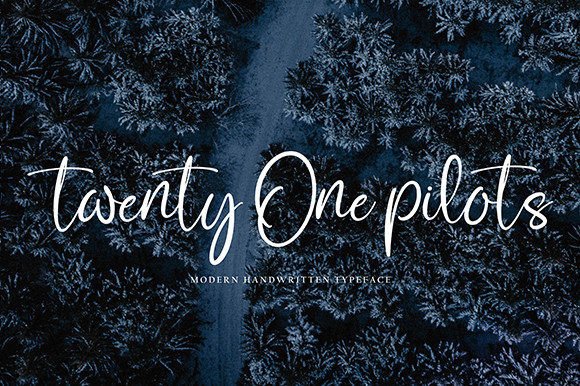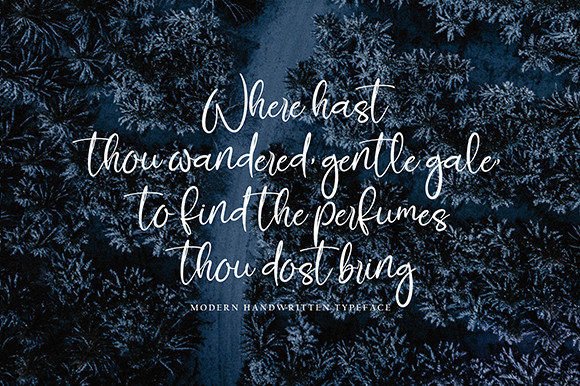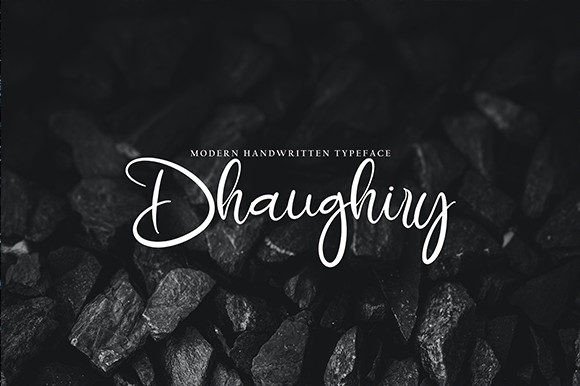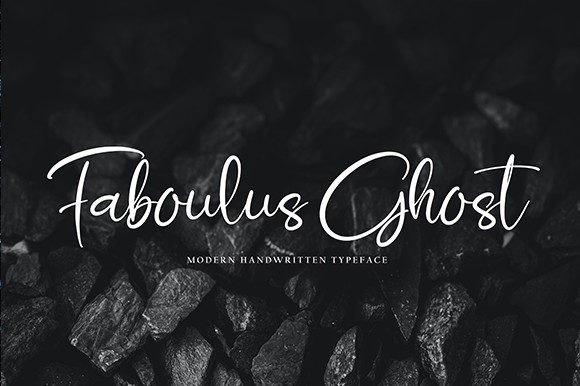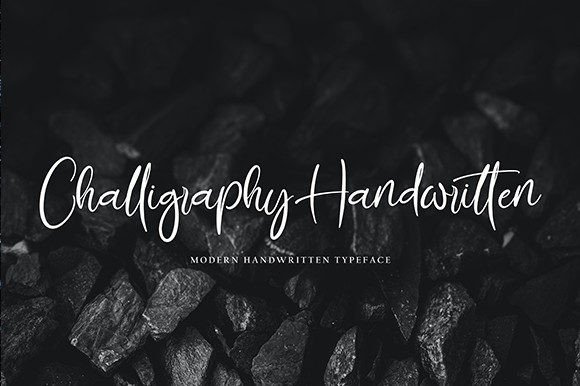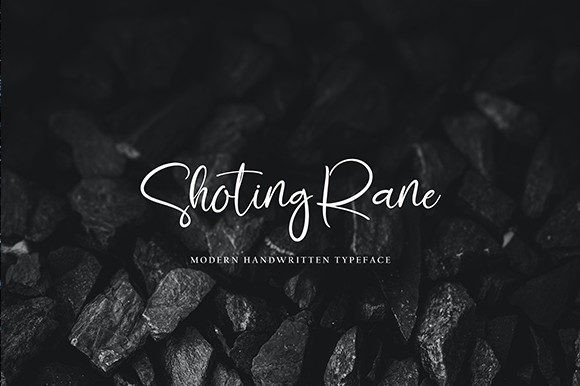
Introducing Enternity Font: The Elegant Handwritten Font for Your Favorite Projects
Are you tired of using the same old fonts for your designs? Look no further! Enternity Font is a beautiful, flowing handwritten font that adds an elegant touch to any project. With its incredibly distinct and timeless style, Enternity is perfect for designers and crafters who want to create spectacular designs that stand out from the crowd.
The Characteristics of Enternity Font
Enternity Font is a handwritten font that exudes elegance and sophistication. Its flowing lines and curves create a sense of movement and fluidity, making it perfect for designs that require a touch of refinement. The font is characterized by its:
- Unique lettering style: Enternity Font has a distinct lettering style that sets it apart from other fonts. Its letters are carefully crafted to create a sense of flow and continuity, making it perfect for designs that require a high level of elegance.
- Elegant touch: Enternity Font has an elegant touch that makes it perfect for designs that require a high level of sophistication. Whether you’re creating a logo, a poster, or a social media graphic, Enternity Font is sure to impress.
- Timeless style: Unlike other fonts that may go out of style quickly, Enternity Font has a timeless style that will never go out of fashion. Its classic design ensures that your designs will remain relevant for years to come.
Why Use Enternity Font?
- Stand out from the crowd: With Enternity Font, you can create designs that stand out from the crowd. Its unique lettering style and elegant touch ensure that your designs will grab attention and leave a lasting impression.
- Perfect for a variety of projects: Enternity Font is versatile and can be used for a variety of projects, including logos, posters, social media graphics, and more.
- Easy to read: Despite its elegant style, Enternity Font is easy to read, making it perfect for designs that require a high level of legibility.
- Pair it with other fonts: Enternity Font pairs well with other fonts, making it perfect for designs that require a combination of fonts.
- Experiment with different sizes: Enternity Font looks great in a variety of sizes, from large headings to smaller body text.
- Use it for headings and titles: Enternity Font is perfect for headings and titles, where its elegant style can really shine.
In conclusion, Enternity Font is a beautiful, flowing handwritten font that adds an elegant touch to any project. With its incredibly distinct and timeless style, Enternity is perfect for designers and crafters who want to create spectacular designs that stand out from the crowd. Whether you’re creating a logo, a poster, or a social media graphic, Enternity Font is sure to impress. So why wait? Try Enternity Font today and see the difference it can make in your designs!